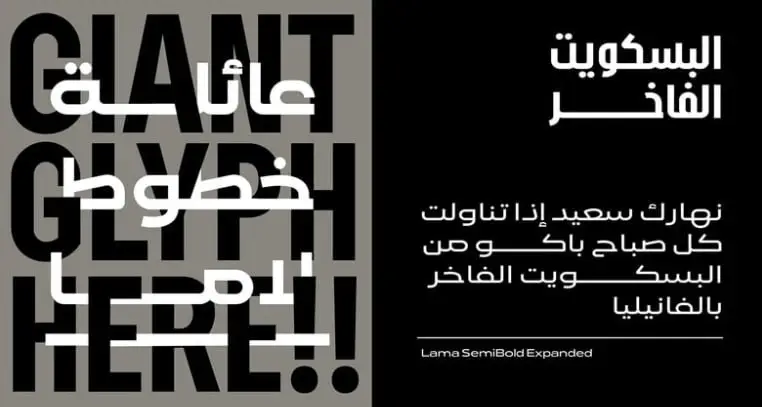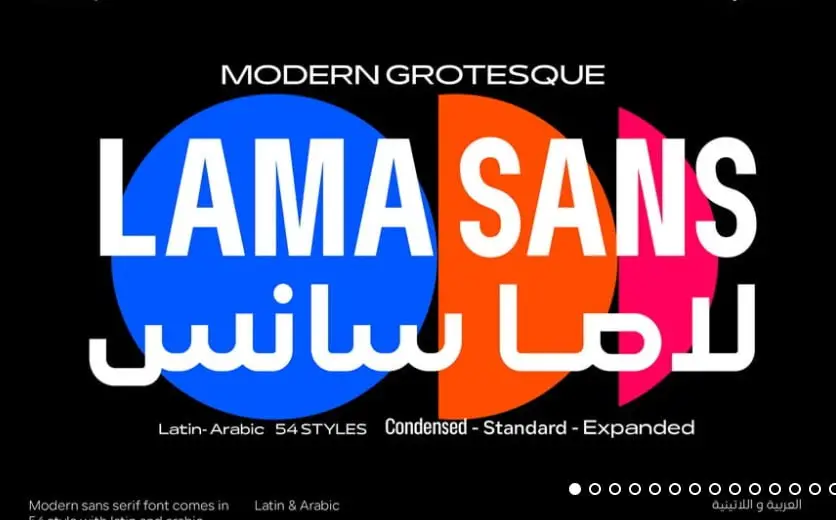
Lama Sans Typeface
Lama Sans Typeface is a modern sans-serif font designed for versatility and readability. With its clean lines and balanced proportions, this typeface is perfect for a variety of applications, from branding and logos to web and print design.
• Multiple weights: Regular, Bold, and Light
• Numerals and punctuation
• Character set: Latin, Cyrillic
This typeface works well in both digital and print formats. Use it for headlines, body text, and UI elements to create a cohesive and professional look.